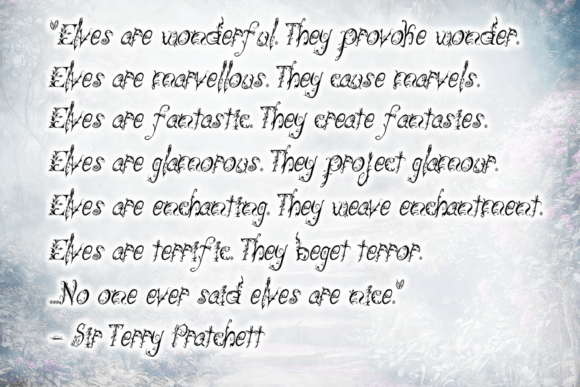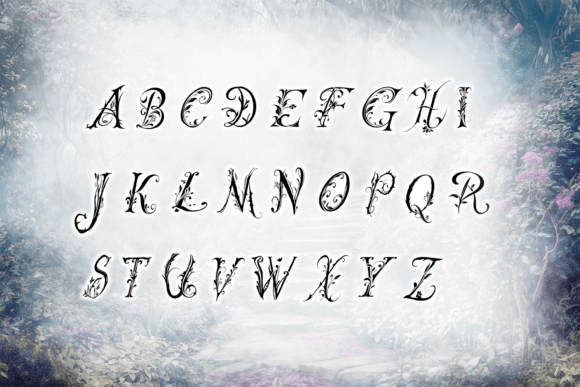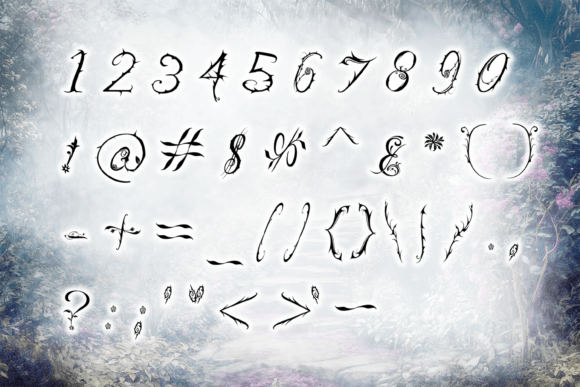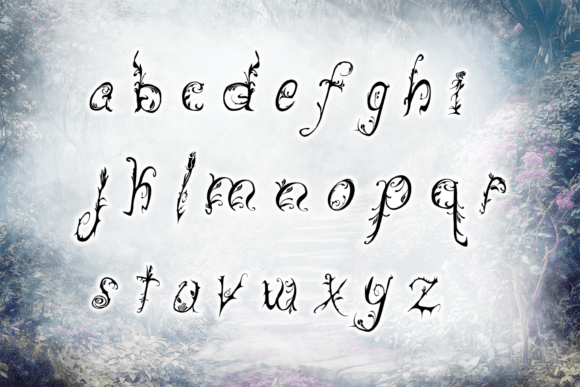
Introduction to Elf Garden Fantasy Font
Have you ever stumbled upon a font that transports you to a world of wonder and magic? As designers, we’ve all experienced that ‘aha’ moment when we discover a font that perfectly captures the essence of our creative project. For me, that moment came when I stumbled upon the enchanting Elf Garden Fantasy Font.
This whimsical decorative font is a treasure trove of intricate details and elegant flourishes, evoking the magic of fairy tales and mythical adventures. Its ability to transport us to enchanted forests and mythical realms makes it a valuable design resource for any creative project. Whether you’re designing book covers, invitations, or branding materials, the Elf Garden Fantasy Font is sure to add a touch of fantasy and wonder to your work.
Key Features of Elf Garden Fantasy Font
- High-quality design: This fantasy font is perfect for creative projects that require a touch of magic and whimsy.
- Transparent background: This font features a transparent background, allowing for easy integration into any design, from digital to print.
- High-resolution design: With a resolution of 300 DPI, this font is perfect for print projects that require crisp, clear text.
- Unique characteristics: The Elf Garden Fantasy Font features intricate, hand-drawn details and a range of magical symbols, making it a standout design element.
- Perfect for fantasy and whimsical projects: This font is ideal for designs that require a touch of fantasy and magic, from book covers to video game titles.
Honest Review: Elf Garden Fantasy Font
I recently came across the Elf Garden Fantasy Font and I must say, I was impressed by its whimsical charm. As a designer, I’m always on the lookout for unique and high-quality design resources to add some magic to my creative projects.
Here are some things that work well with this font:
- ✨ Beautifully crafted, intricate details that evoke a sense of fantasy and wonder
- ✨ High-quality rendering, perfect for printing or using on a transparent background
- ⚠️ Limited character set, which may not be suitable for longer texts
- ⚠️ Not ideal for body text, as it may be too ornate and distracting
Overall, I think the Elf Garden Fantasy Font is a great addition to any designer’s toolkit, especially for creative projects that require a touch of fantasy and magic. While it may not be suitable for all types of designs, it’s definitely worth checking out if you’re looking for a high-quality, unique font.
For a more detailed and high-quality design, use the Elf Garden Fantasy Font in Adobe Photoshop or Illustrator. This font is a valuable design resource that can be used to create intricate and elaborate designs, from fantasy book covers to video game graphics.
Bringing Elf Garden Fantasy Font to PowerPoint/Word
Even if you’re not a seasoned designer, you can still use the Elf Garden Fantasy Font in PowerPoint or Word to add a touch of whimsy to your presentations or documents. Use it to create eye-catching headings, titles, or even entire paragraphs that will captivate your audience.
Tips for Getting the Most Out of Elf Garden Fantasy Font
Experiment with different font sizes, colors, and styles to create unique and captivating designs. Use the transparent background to layer your font over images or other design elements for a truly magical effect.
Common Use Cases for Elf Garden Fantasy Font
This font is perfect for designers working on fantasy, sci-fi, or adventure-themed projects, including book covers, video game graphics, and movie posters. It’s also great for creating invitations, posters, and social media graphics for events or products with a whimsical or magical theme.